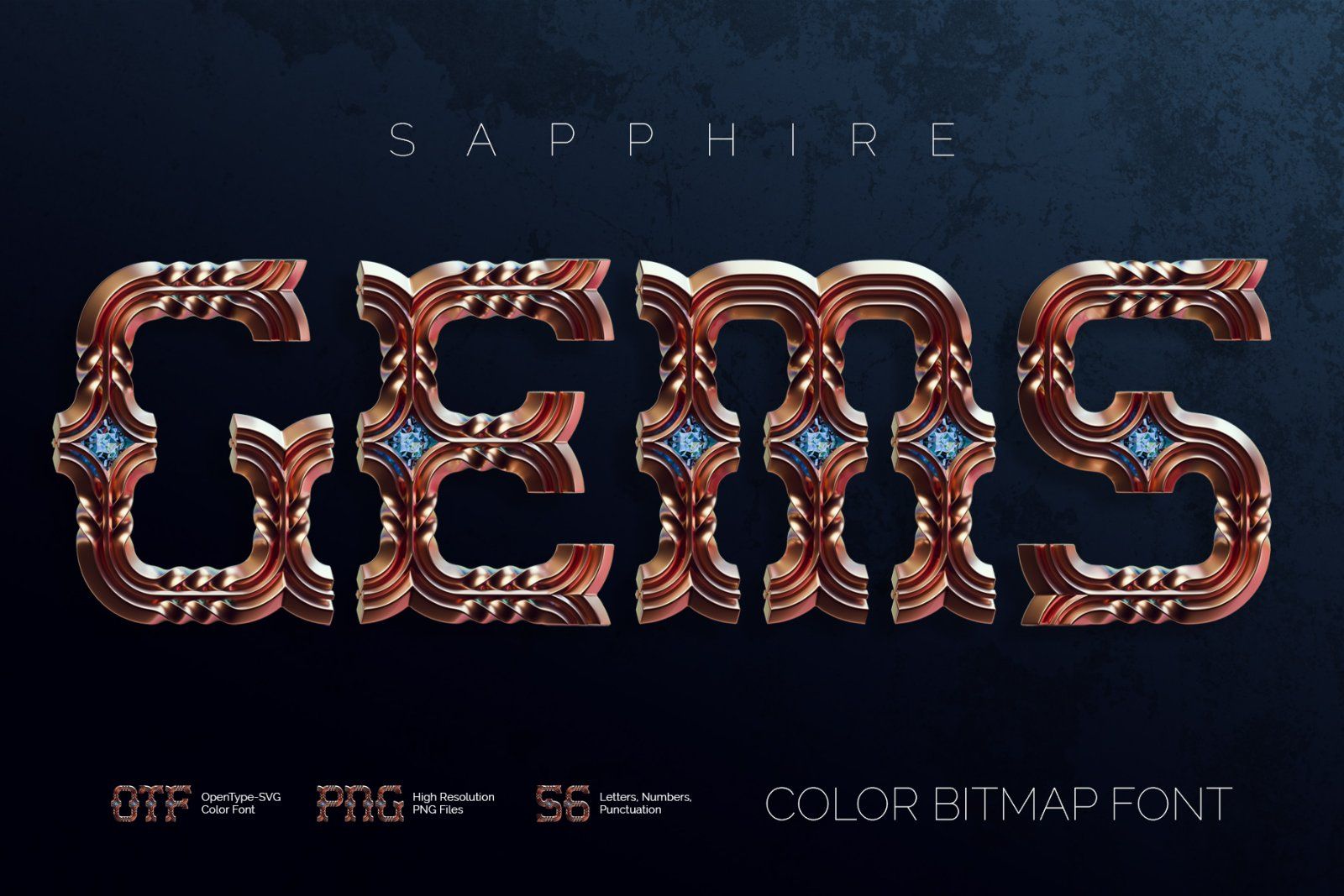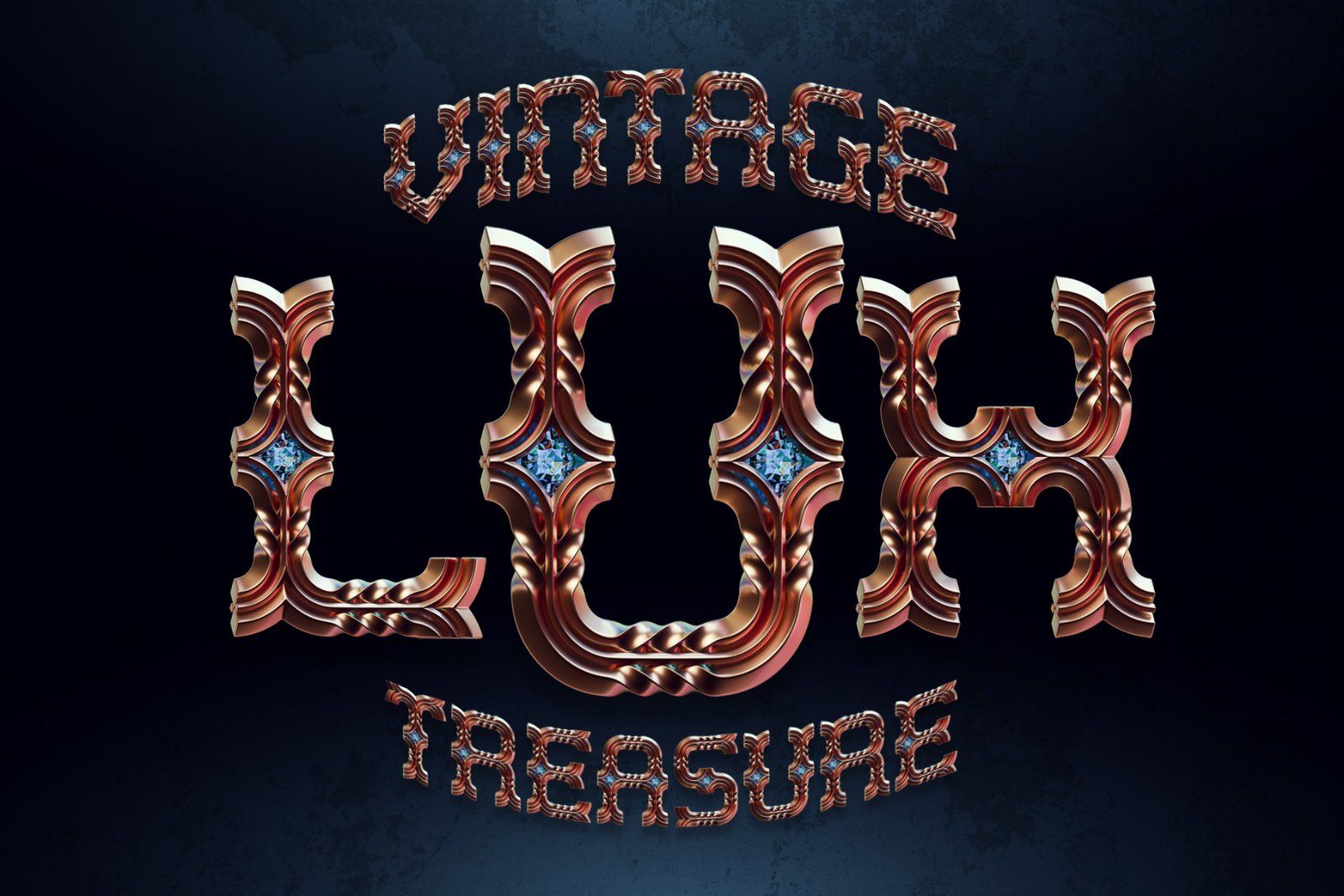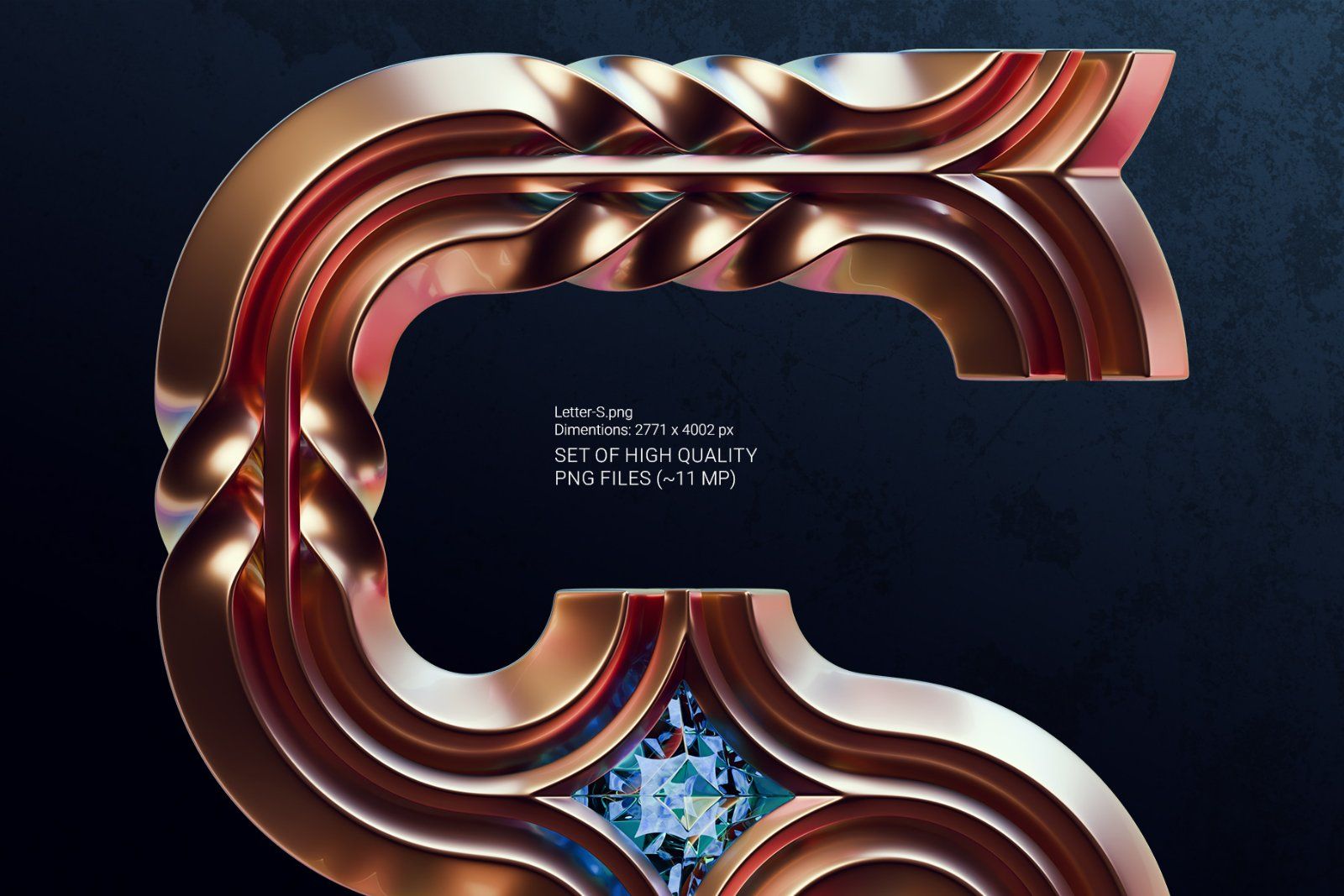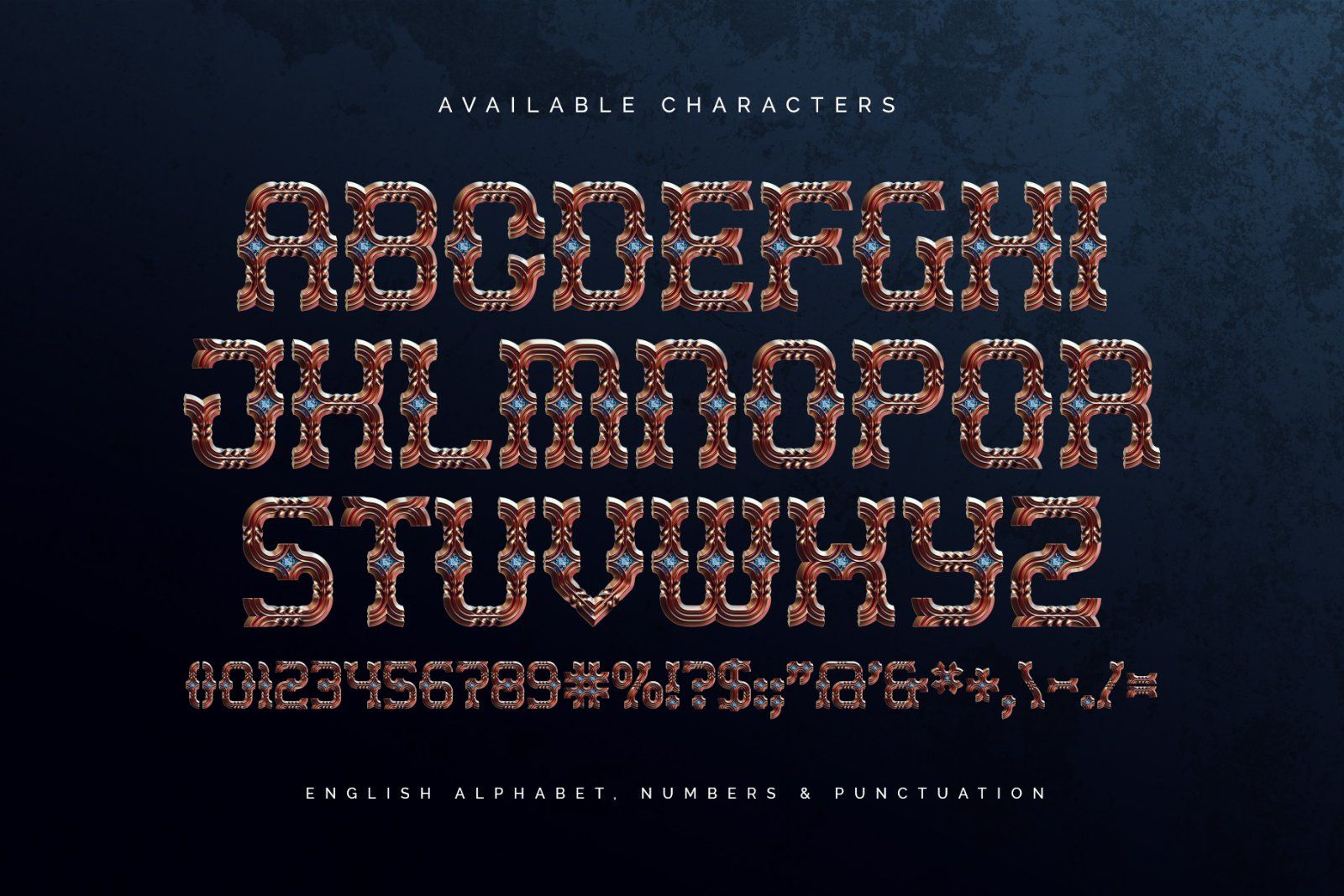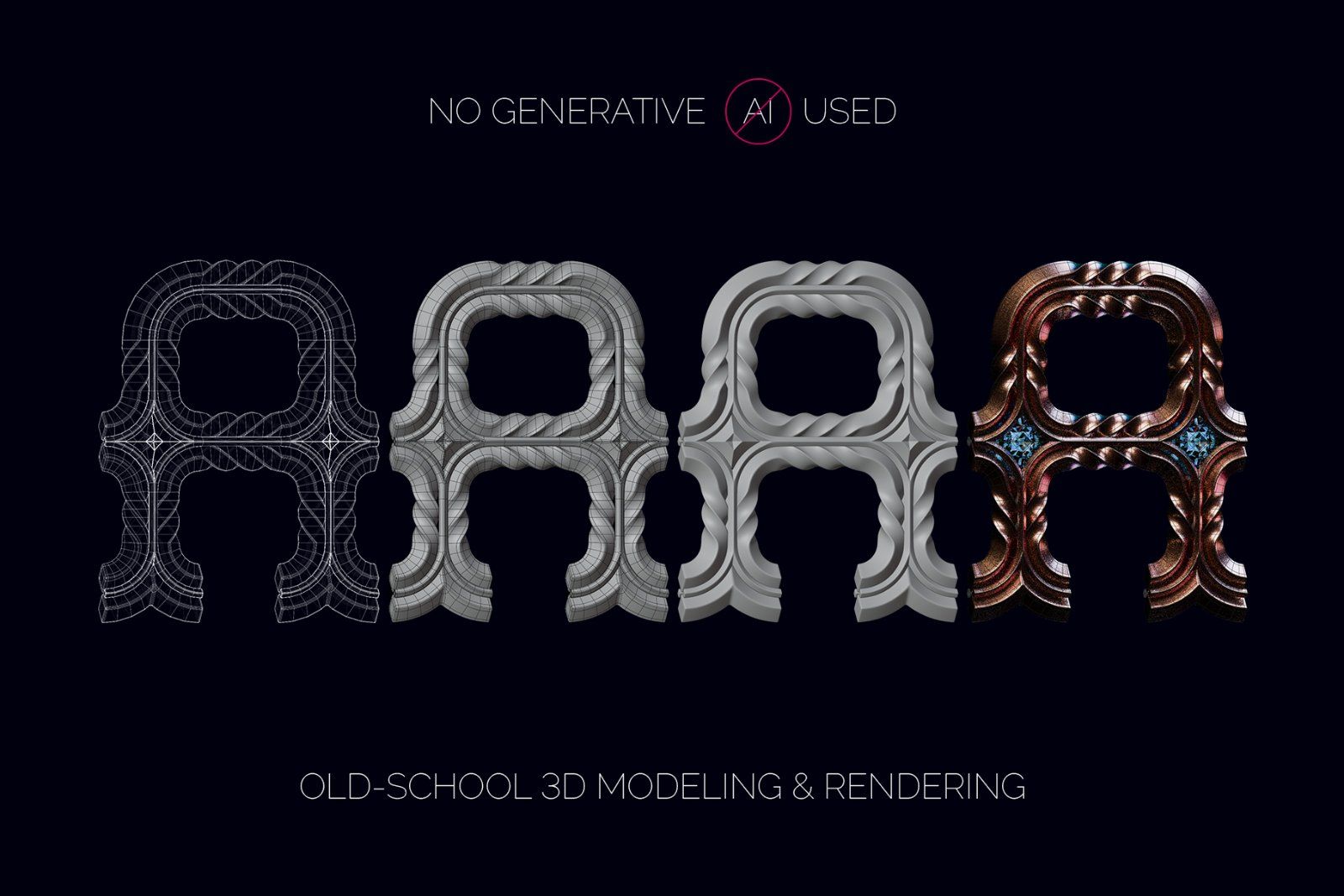
Introducing Sapphire Gems, a realistic 3D lettering set. Inspired by vintage design, this font features polished bronze letters inlaid with vibrant blue gemstones. It is a versatile choice for luxury branding, editorial layouts, poster designs, and creative packaging.
Sapphire Gems is a color bitmap OpenType-SVG font, usable just like any standard OTF font. Additionally, the set includes high-resolution PNG files with transparent background (average resolution is 11 megapixels).
Consider that the font supports only the English language and basic punctuation. Be sure to review the included screenshot for a complete list of available characters.